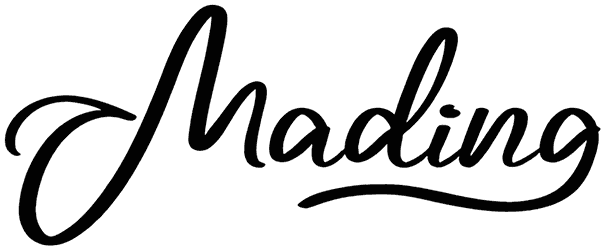
Mading Font
Make a hand-forming face for your design with Mading, in which the lines of words wind and give it a unique and stylish look. This calligraphy font compensates for the lack of numbers and punctuation by having a delicate outward appearance and being in harmony with many themes. Design your following projects, such as social media posts, postcards, logos, or anything with Mading and overjoy it.